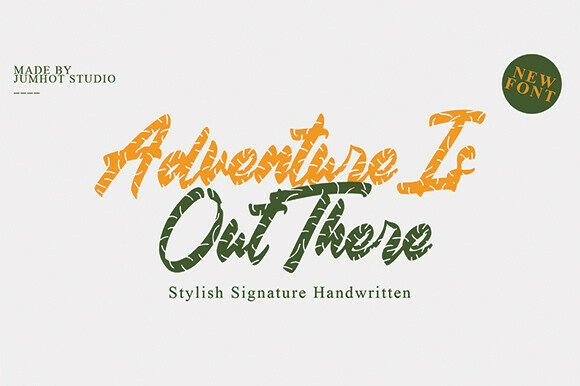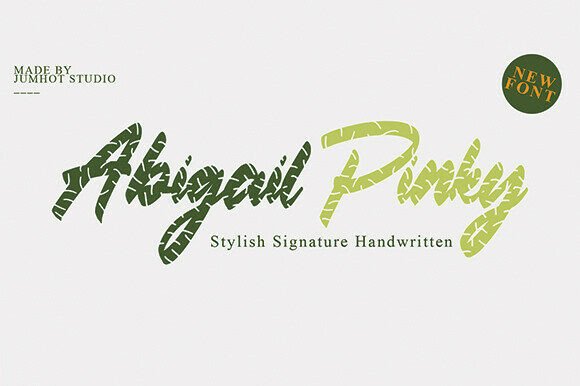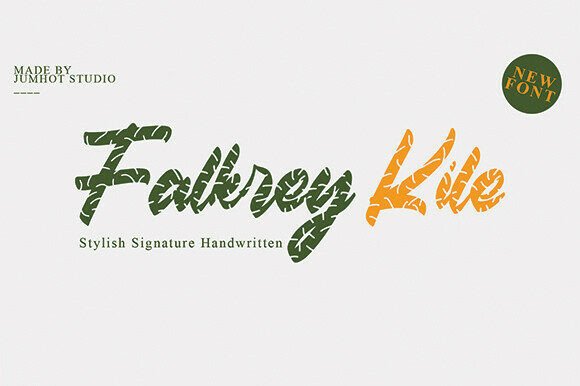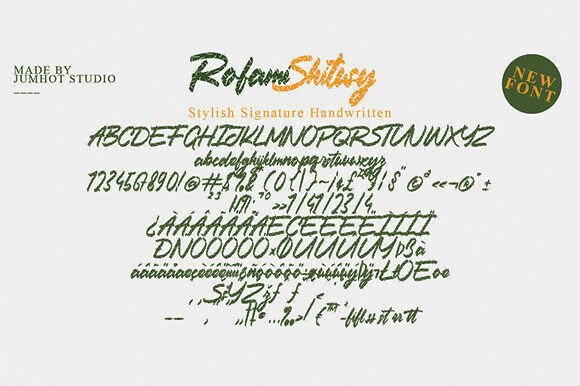
Introduction to Rofamy Shitusi Font
Rofamy Shitusi is a wildly expressive and decorative signature handwritten font that truly stands out with its unusual, two-toned infill, giving it a unique, organic, and tropical texture.
The basic structure of the Rofamy Shitusi typeface is a bold, energetic brush script, but the inclusion of the leaf and vine-like patterns within the letters transforms it into a highly specialized display piece This decorative Rofamy Shitusi script font is ideal for branding related to nature, tropical resorts, organic food, and outdoor apparel, or for any design needing a distinct, botanical, or camouflage feel.
Key Features of Rofamy Shitusi Font